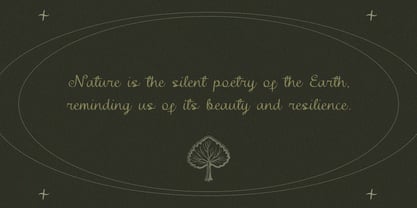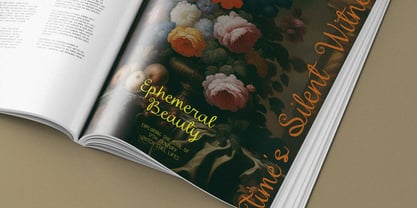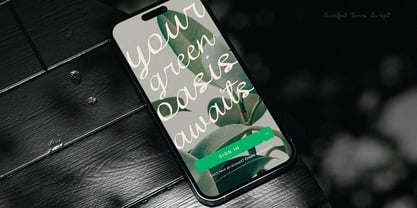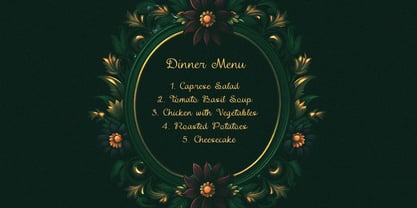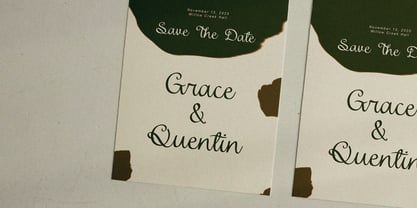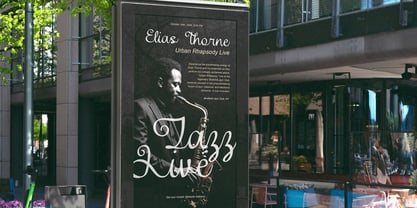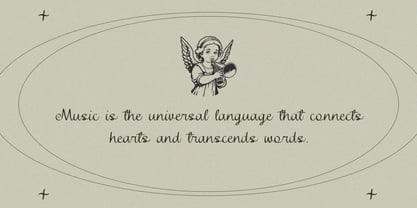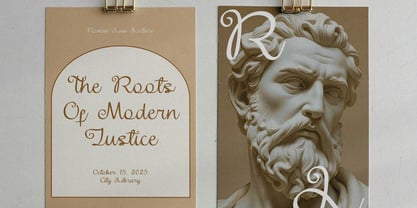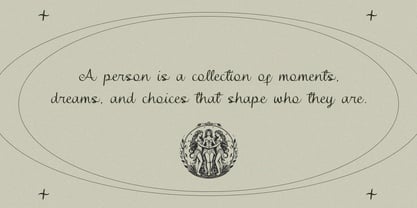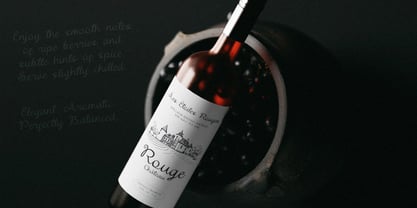
Soulful Tunes
by Fidan Fonts
The Soulful Tunes Font Family was designed by Fidan Aslanova and published by Fidan Fonts. Soulful Tunes contains 1 styles. More about this family
Soulful Tunes - the monoline script is inspired by the harmonious blend of music, humanity, and nature. Its lines resemble delicate petals, flowing gracefully to evoke organic elegance and natural beauty. With a vintage charm, the script has an antiquated feel, emphasizing timeless appeal over modernity.
Its simple, continuous lines create a cohesive, monoline structure that conveys both artistry and authenticity.
Perfect for projects that seek to evoke a sense of nostalgia, warmth, and connection to the natural world through a musical and human-inspired aesthetic.